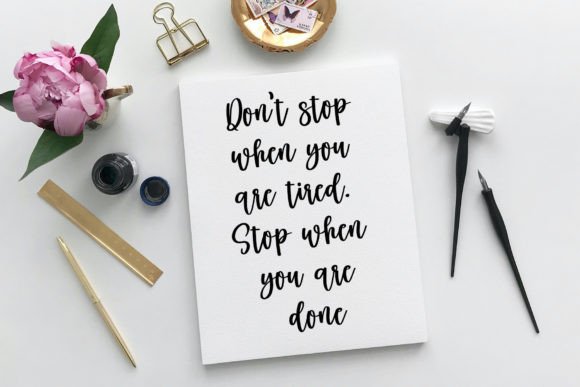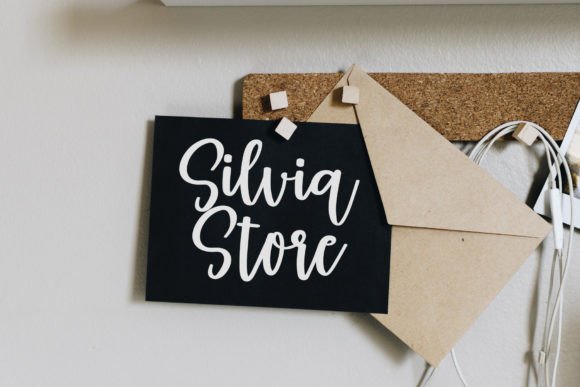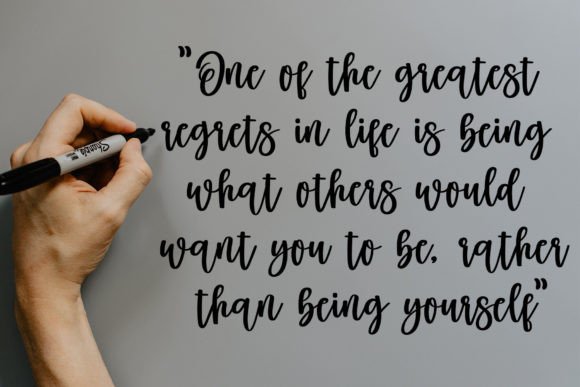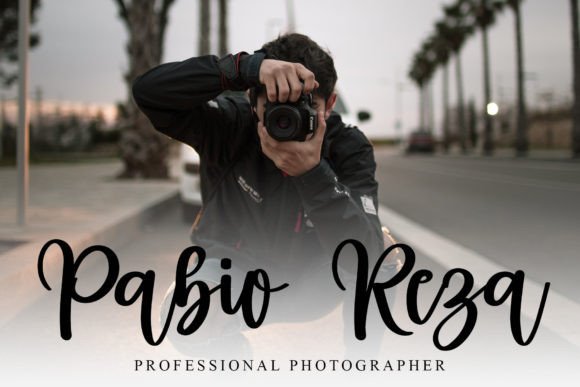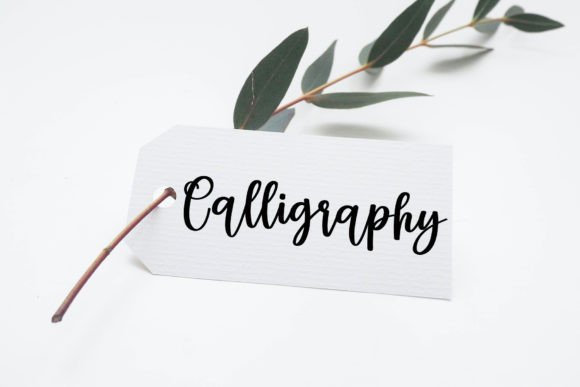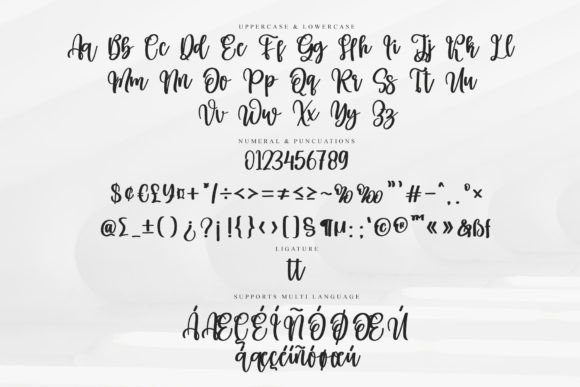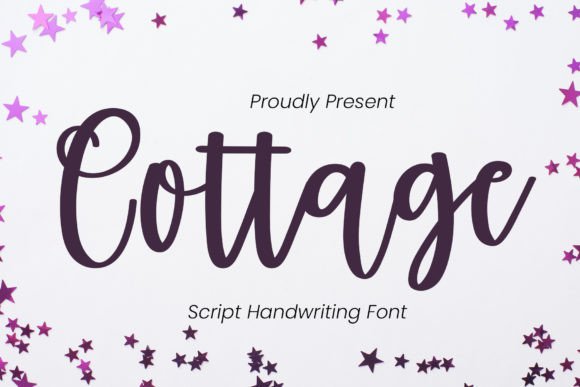
Cottage Font: A Stylish and Dainty Handwritten Font for Your Creative Projects
Are you a designer or crafter looking for a beautiful and elegant font to add a touch of sophistication to your projects? Look no further than Cottage Font, a stylish and dainty handwritten font that’s perfect for logos, branding projects, labels, photography, watermarks, and more.
What is Cottage Font?
Cottage Font is a carefully crafted handwritten font that’s designed to bring a touch of elegance and whimsy to your creative projects. With its delicate and refined strokes, this font is ideal for designers and crafters who want to add a personal touch to their work.
Features of Cottage Font
Cottage Font boasts a range of features that make it the perfect choice for your creative projects. Some of its key features include:
- Handwritten style: Cottage Font is a beautifully crafted handwritten font that adds a personal touch to your projects.
- Stylish and dainty: This font is characterized by its delicate and refined strokes, making it perfect for projects that require a touch of elegance.
- Versatile: Cottage Font is suitable for a wide range of projects, including logos, branding projects, labels, photography, watermarks, and more.
- Easy to read: Despite its delicate nature, Cottage Font is easy to read and understand, making it perfect for projects that require clear communication.
Uses of Cottage Font
Cottage Font is a versatile font that can be used in a variety of creative projects. Some of the most popular uses of this font include:
- Logos and branding projects: Cottage Font is perfect for creating elegant and sophisticated logos and branding materials.
- Labels and packaging: This font is ideal for creating beautiful and eye-catching labels and packaging materials.
- Photography and watermarks: Cottage Font can be used to add a touch of elegance to your photographs and watermarks.
- Special events: This font is perfect for creating beautiful and memorable materials for special events, such as weddings, birthdays, and more.
Why Choose Cottage Font?
There are many reasons why Cottage Font is the perfect choice for your creative projects. Some of the benefits of using this font include:
- Unique and elegant: Cottage Font is a unique and elegant font that will add a touch of sophistication to your projects.
- High-quality: Cottage Font is a high-quality font that’s designed to produce crisp and clear results.
Tips for Using Cottage Font
To get the most out of Cottage Font, here are a few tips to keep in mind:
- Use it sparingly: Cottage Font is a delicate font that’s best used sparingly. Use it to add a touch of elegance to your projects, but avoid overusing it.
- Experiment with sizes and colors: Don’t be afraid to experiment with different sizes and colors to find the perfect combination for your project.
- Pair it with other fonts: Cottage Font can be paired with other fonts to create a unique and interesting look.
Cottage Font is a stylish and dainty handwritten font that’s perfect for designers and crafters who want to add a touch of elegance to their projects. With its delicate and refined strokes, this font is ideal for logos, branding projects, labels, photography, watermarks, and more. Whether you’re looking for a unique and elegant font to add a personal touch to your work, Cottage Font is the perfect choice.